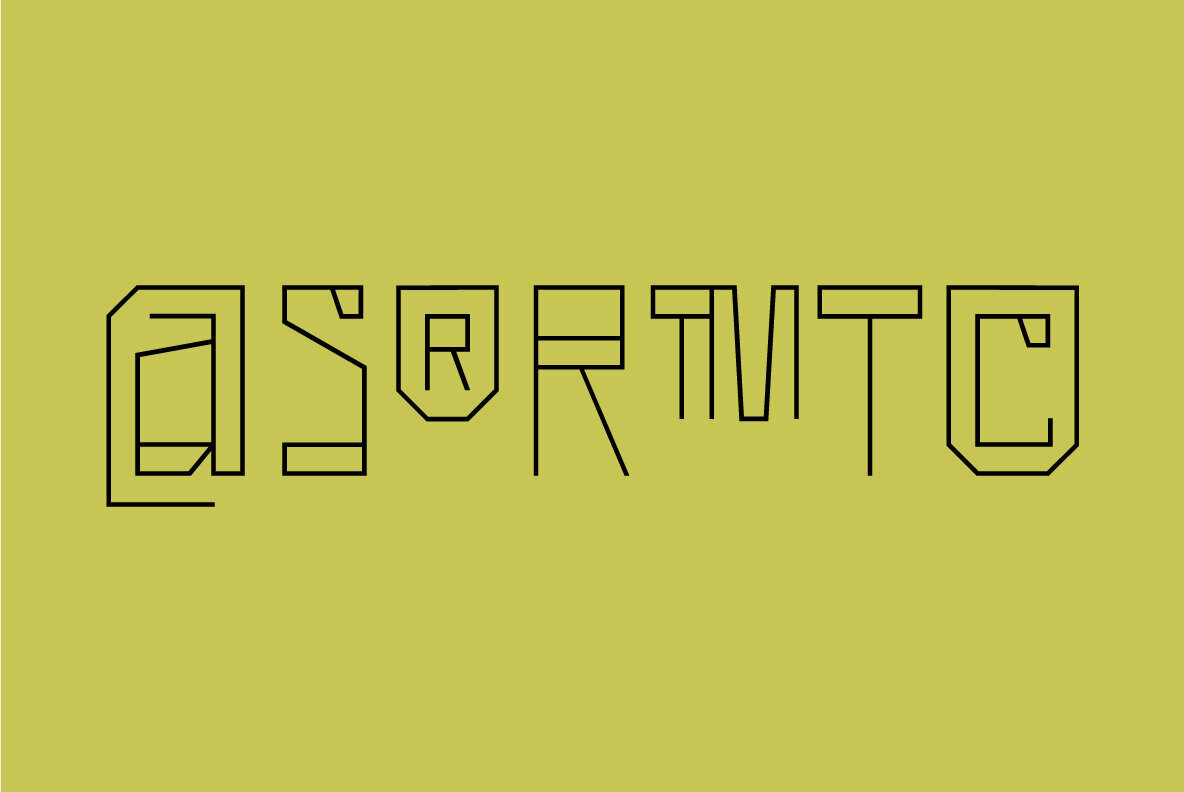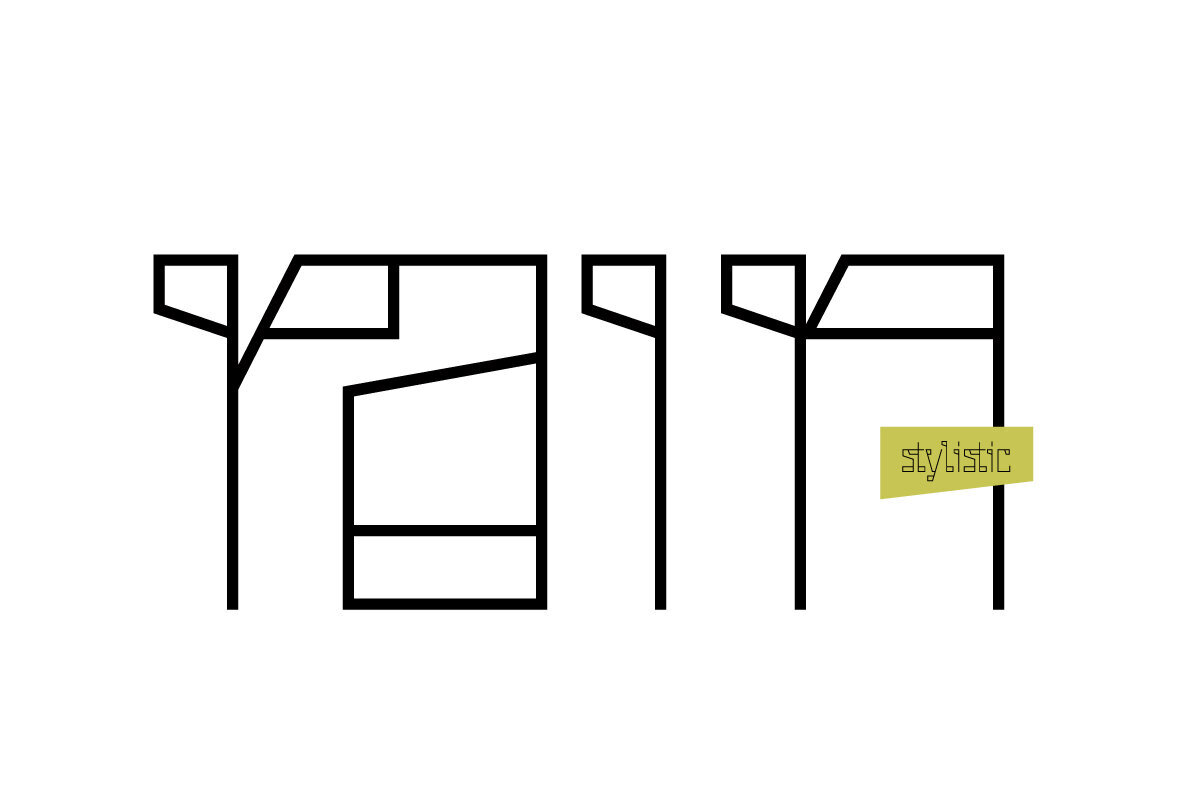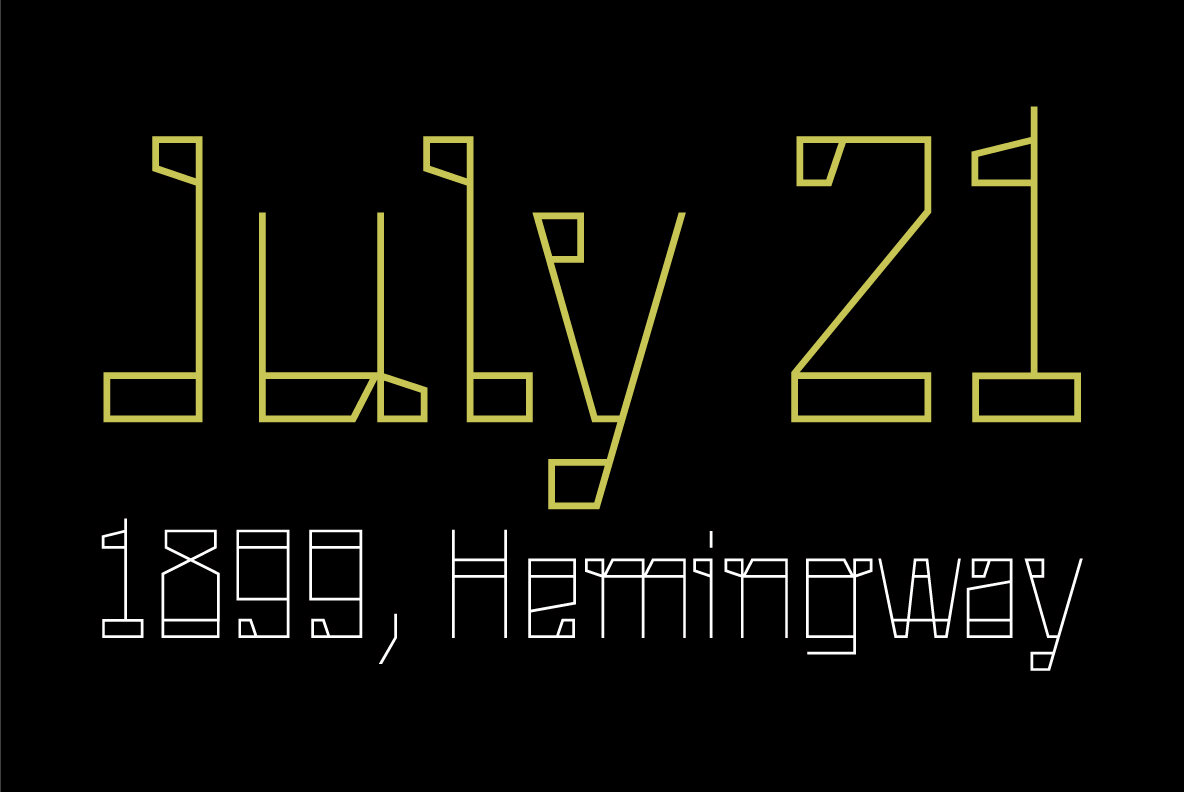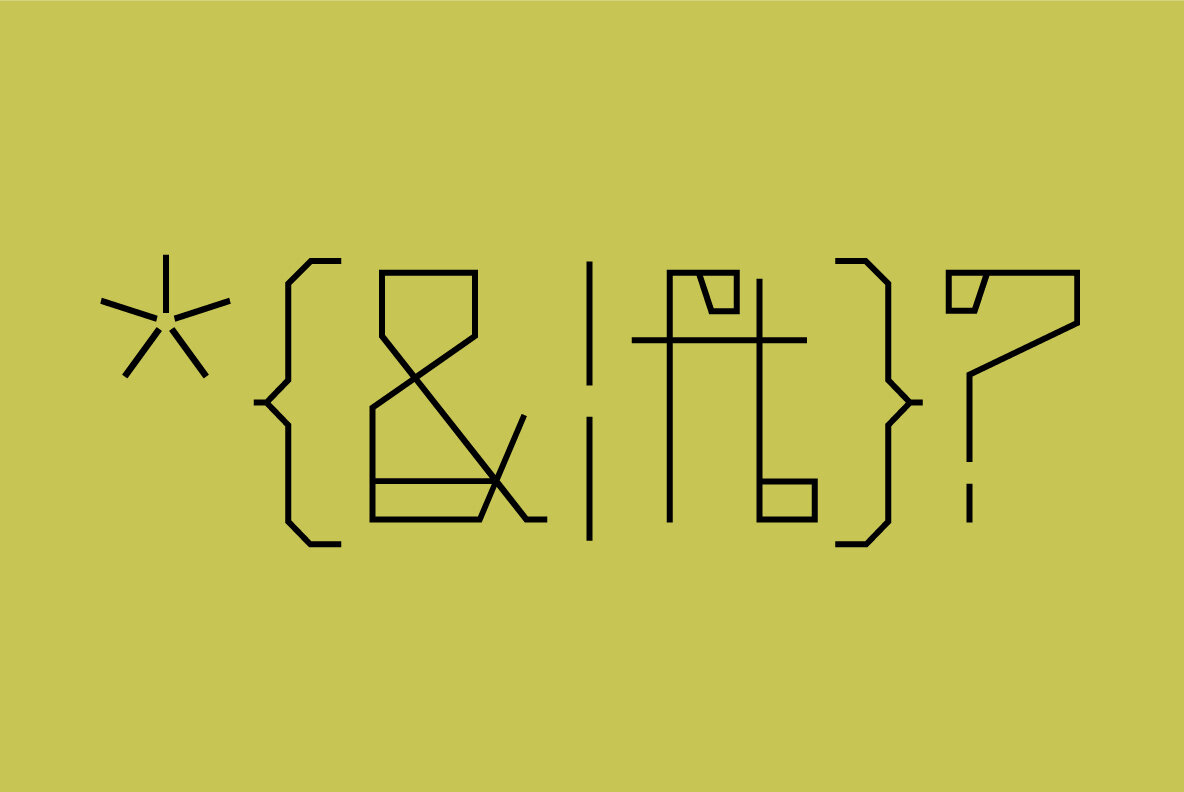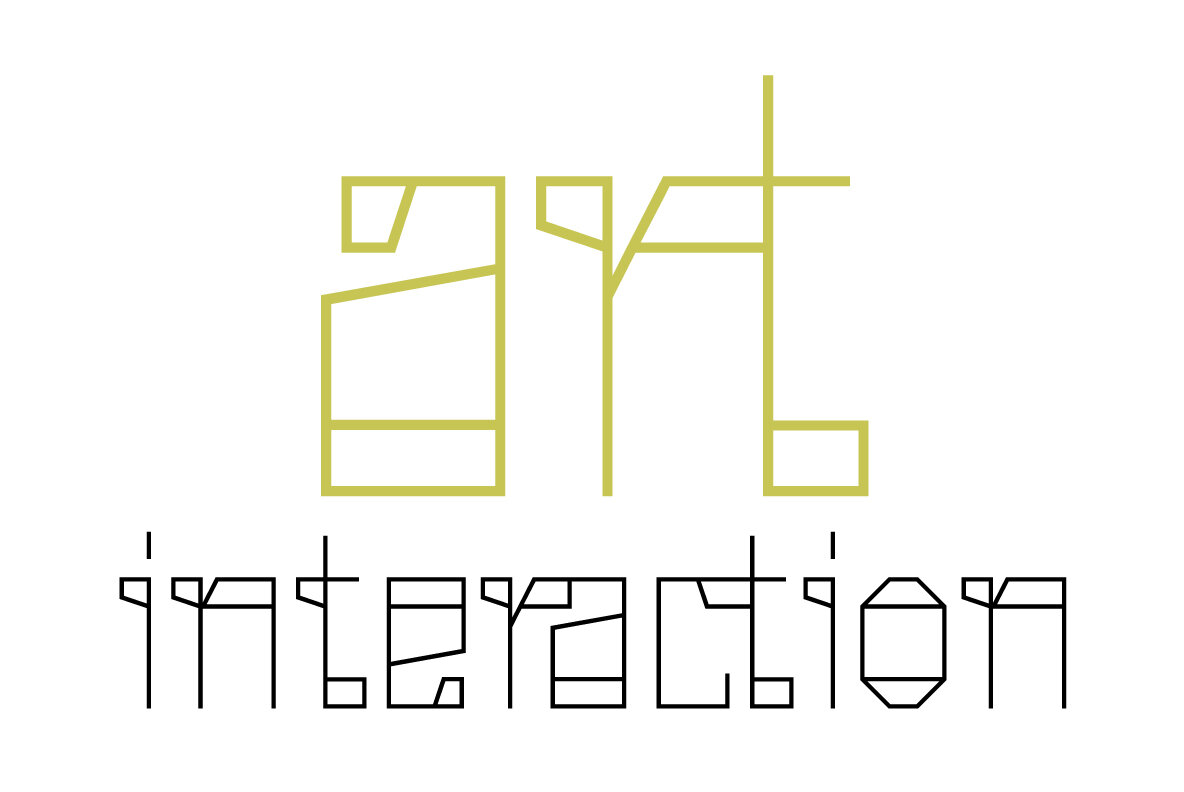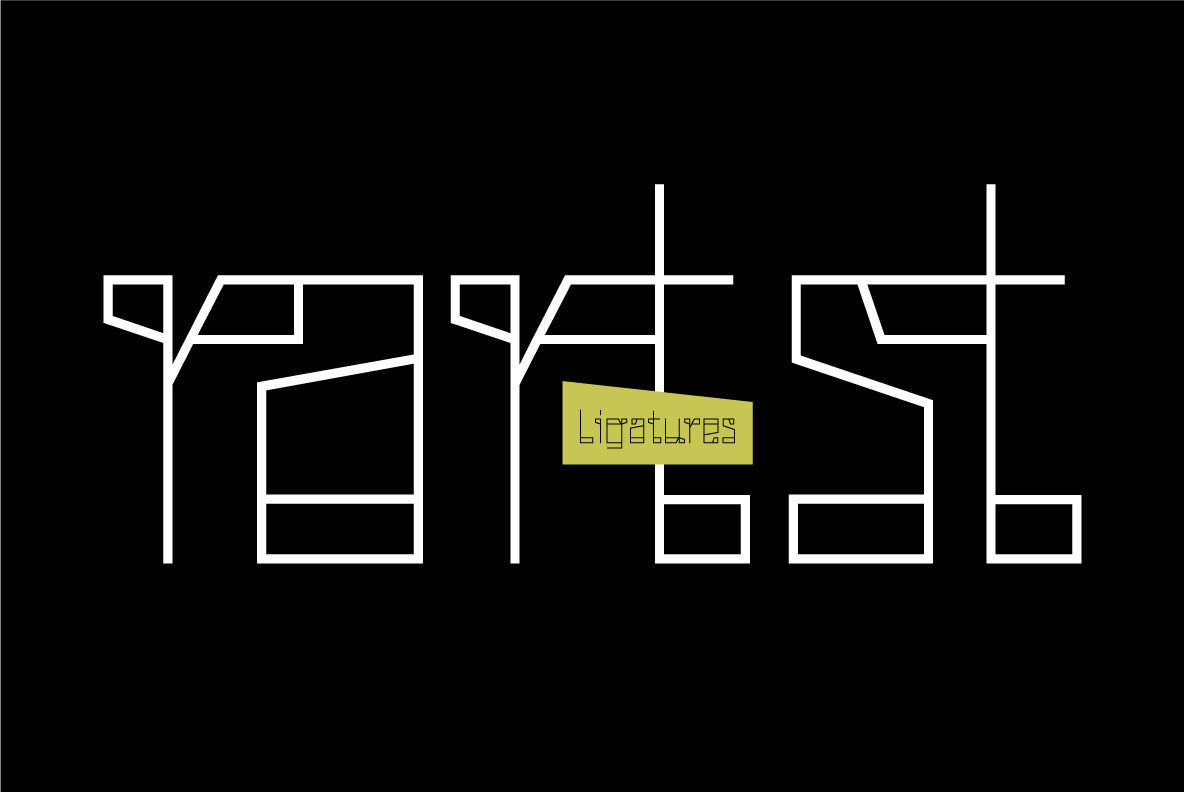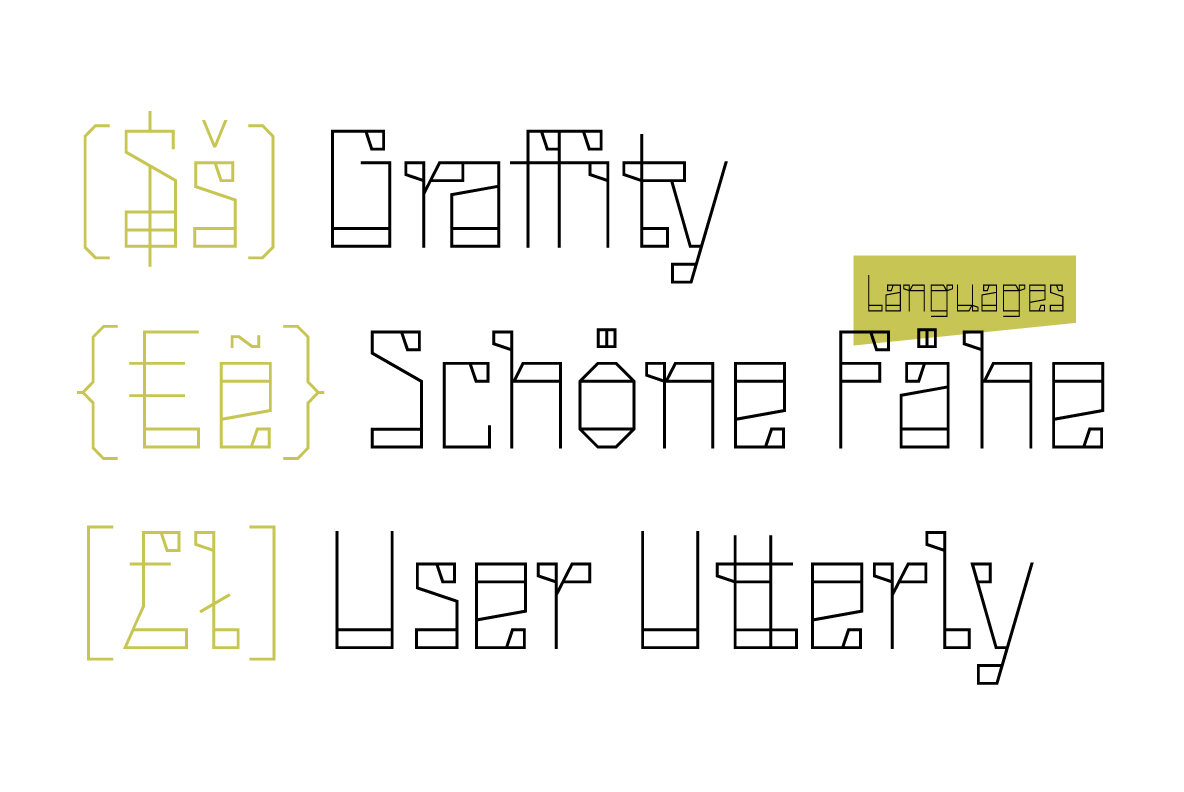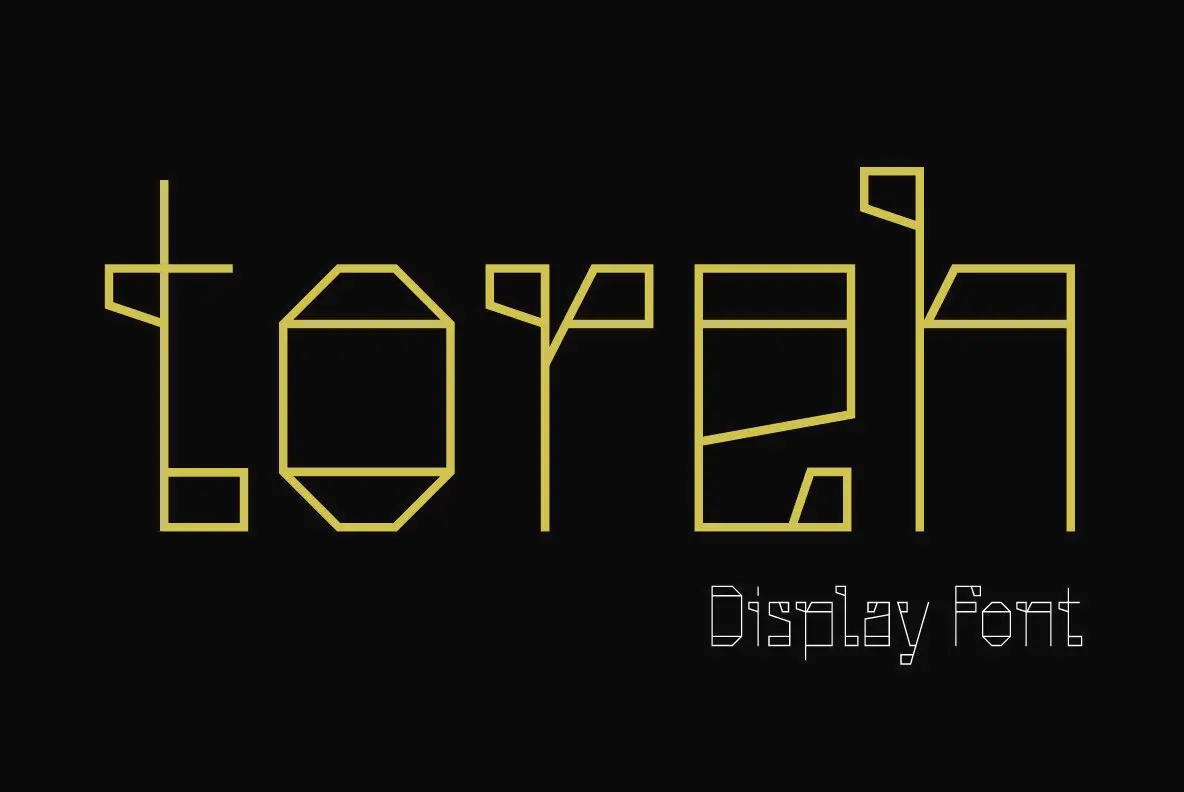
Toreh Font
Toreh is a meticulously crafted linear display font, offering a unique blend of classic serif elegance and contemporary design logic. Designed with monoline contrast, Toreh maintains uniformity across its uppercase and lowercase characters, adhering to a consistent linear approach. This font embodies the soul of classical serif styles, while certain serifs are adapted to exude a modern, stylish flair.Toreh: A Linear Display Font With Monoline Contrast